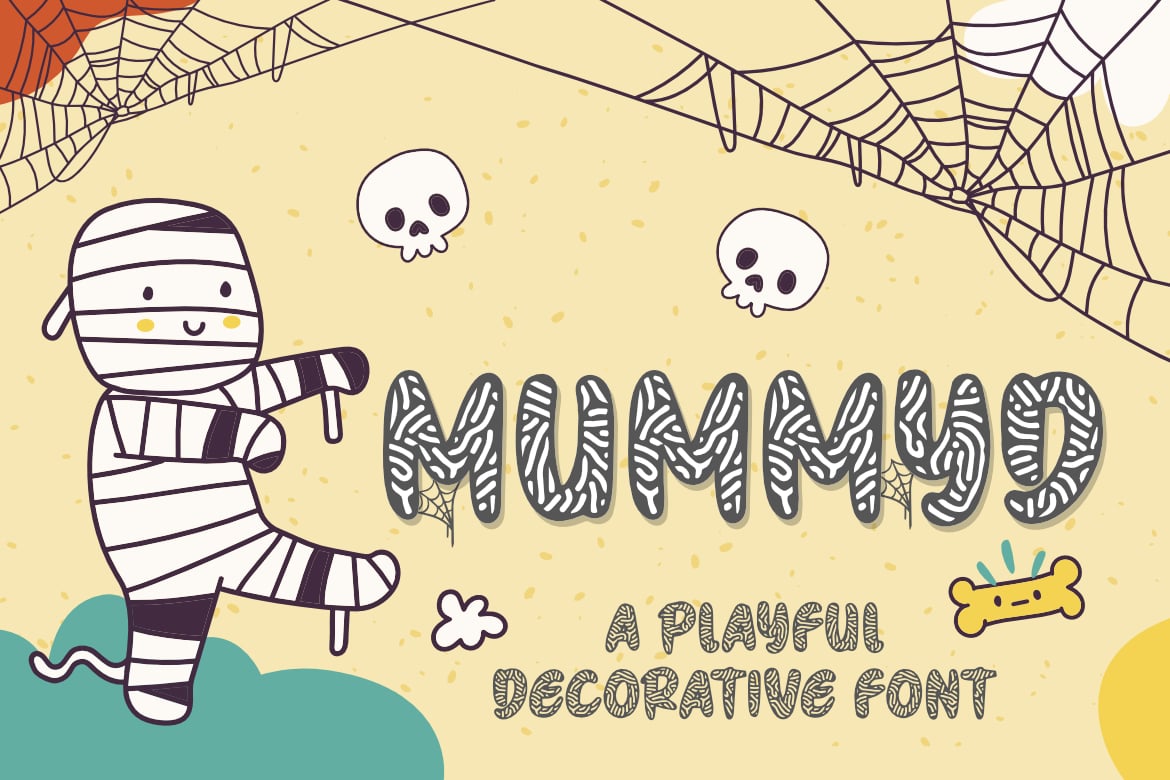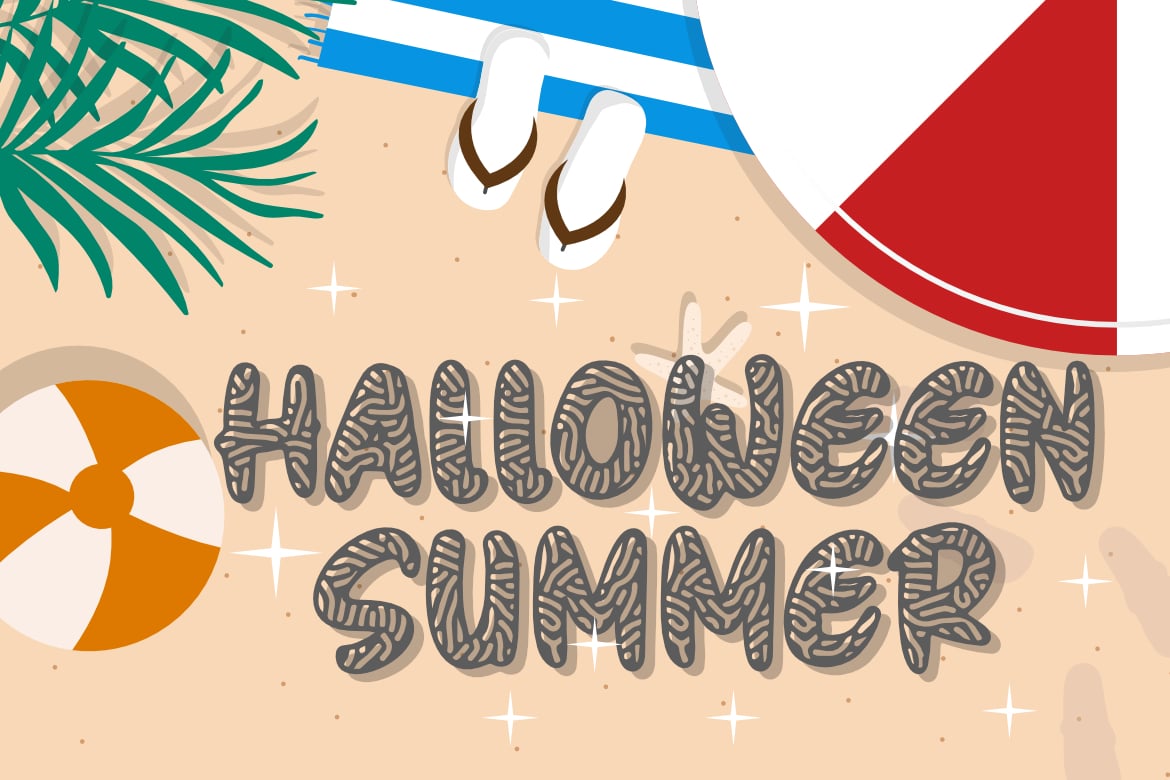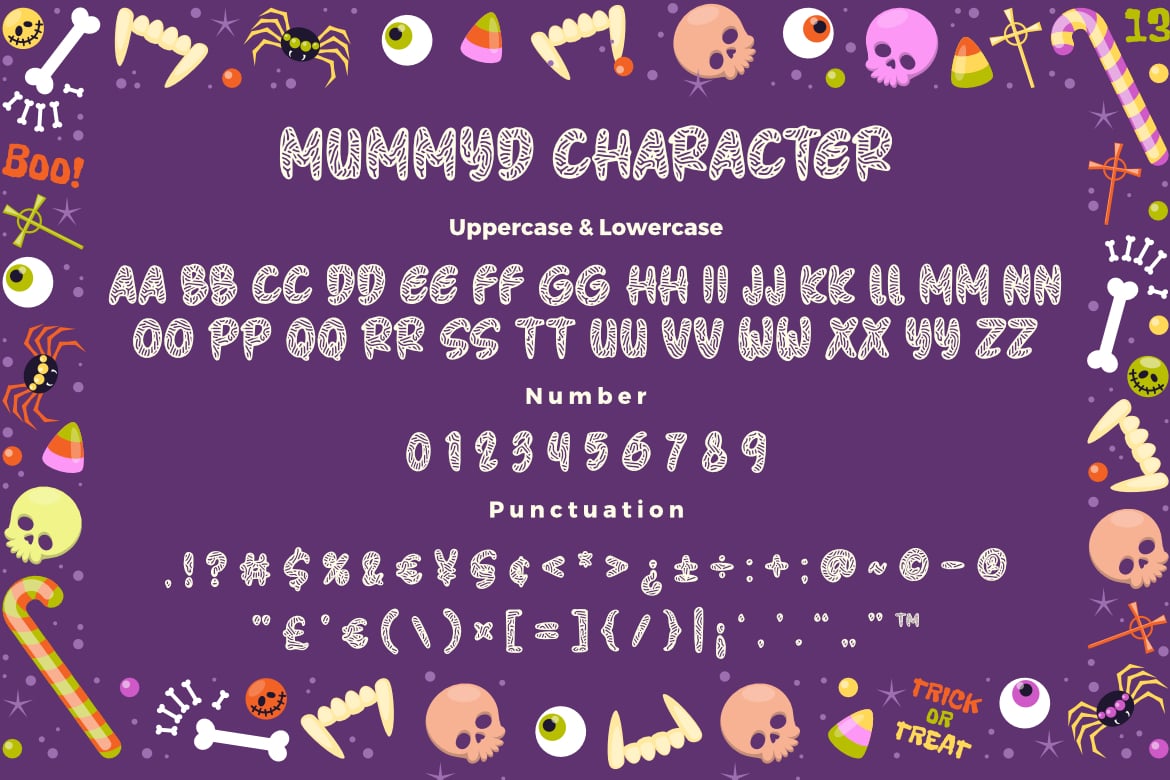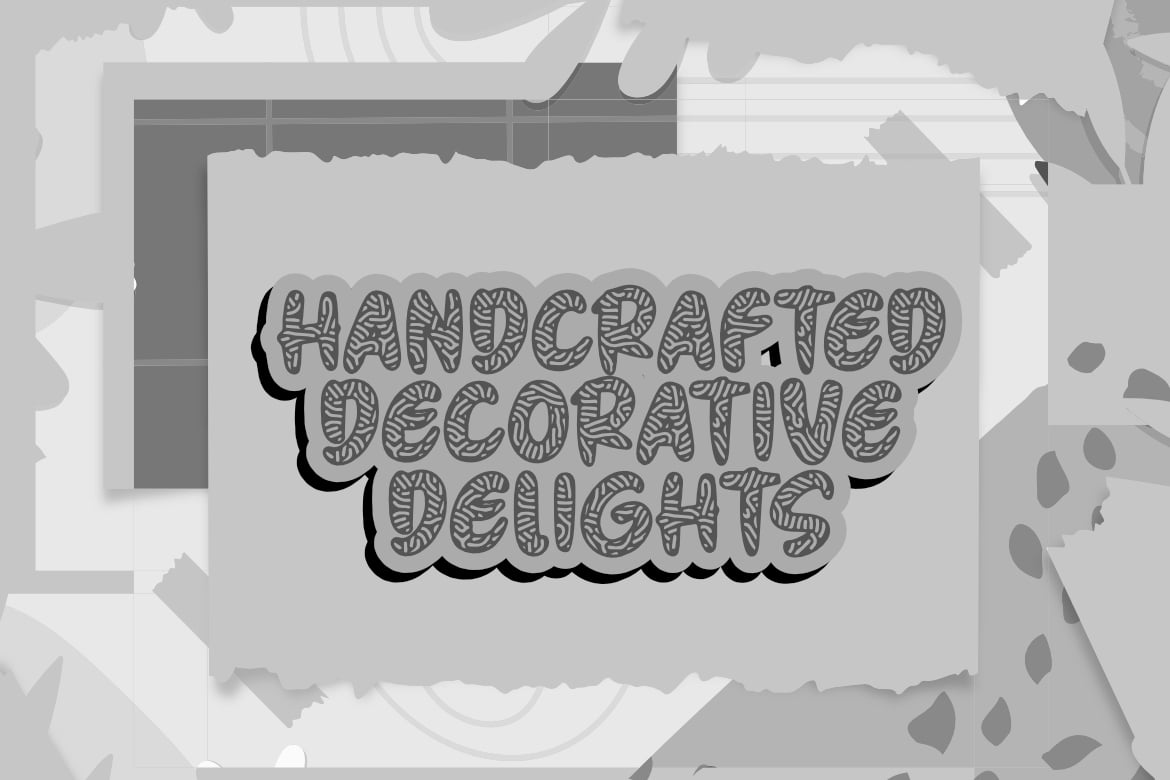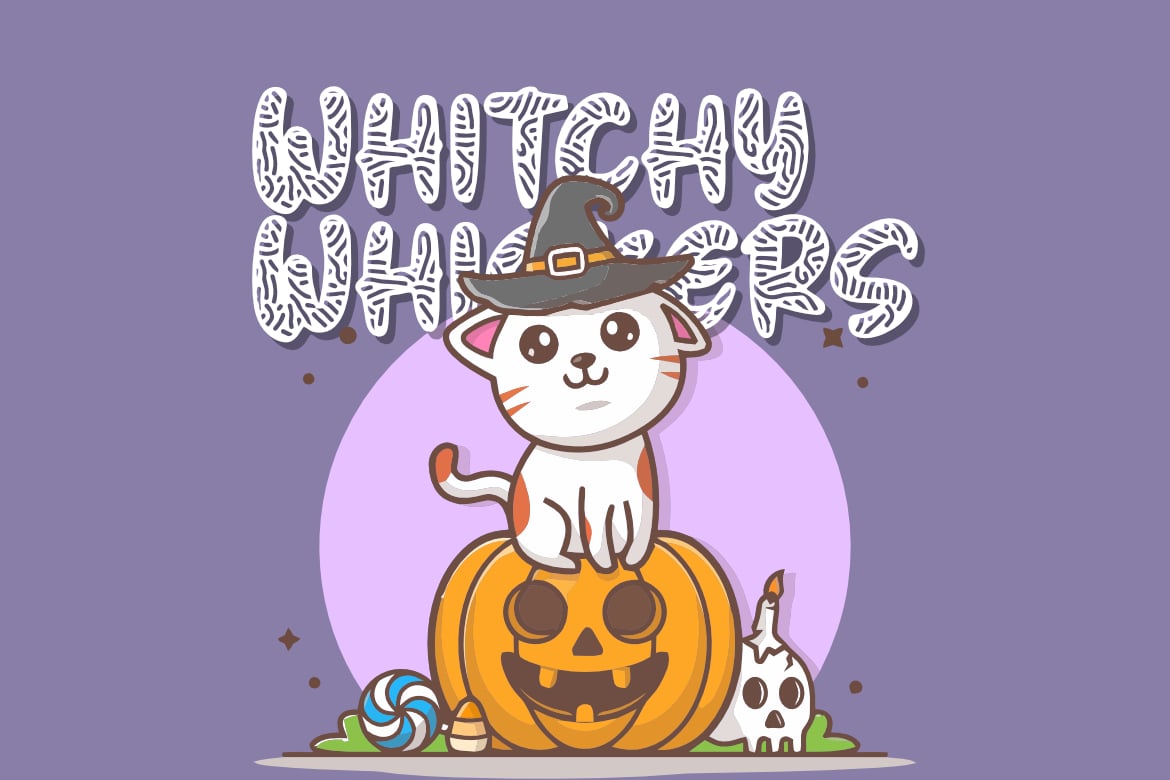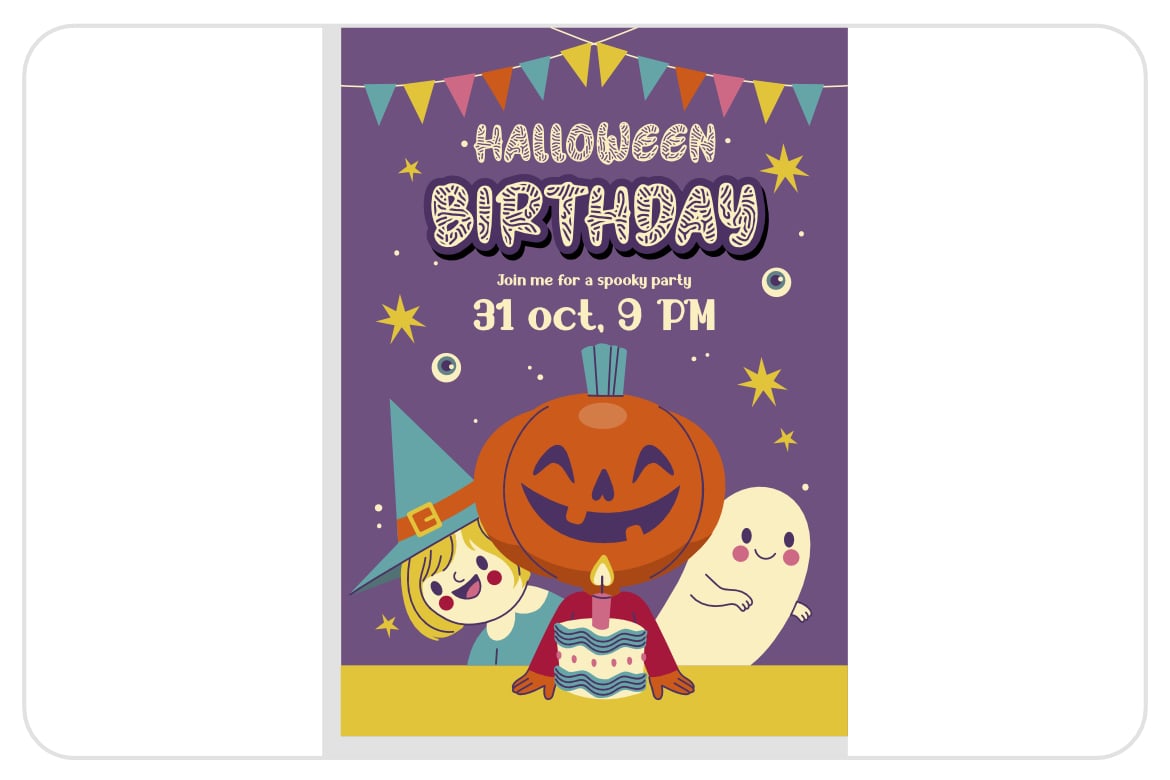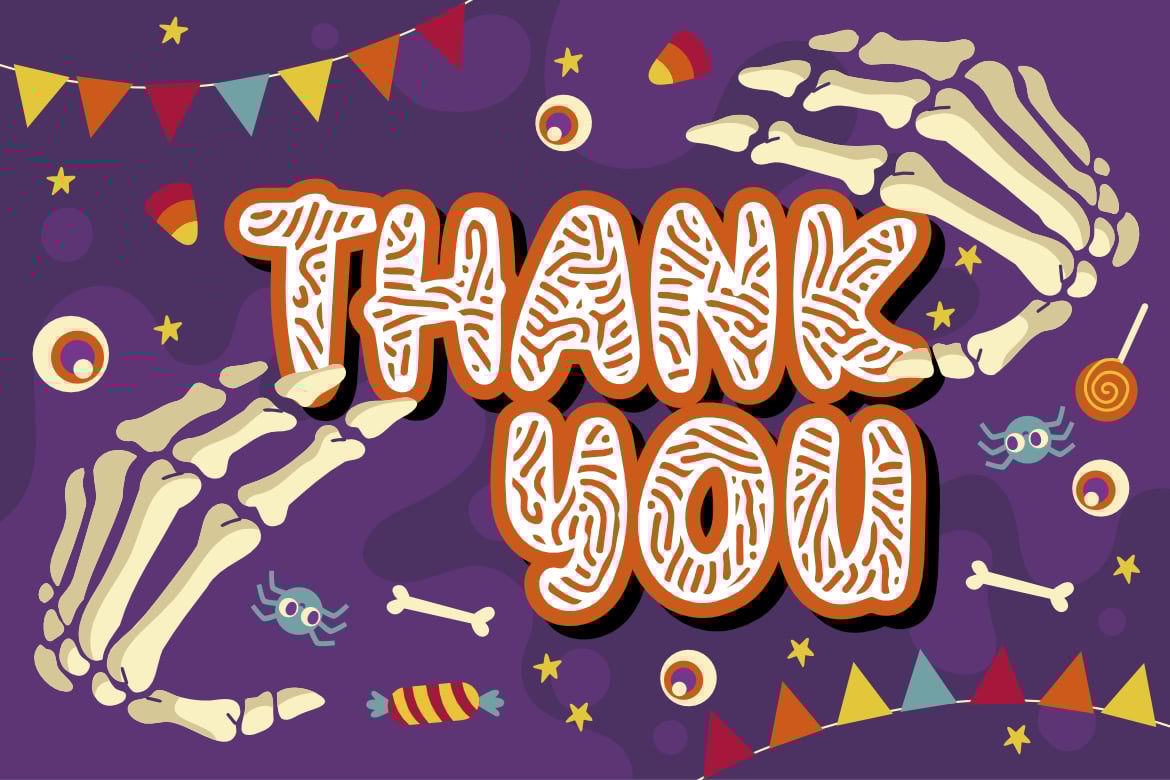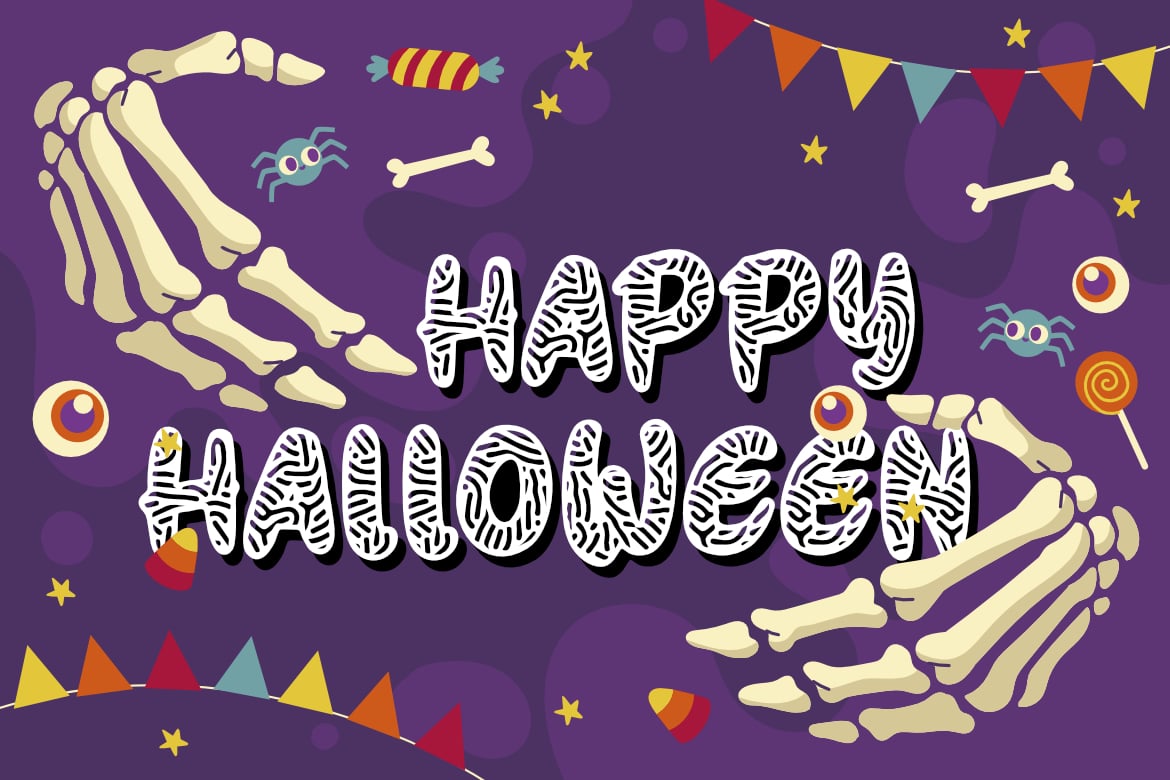
Mummyd a Playful Font
Mummyd a Playful Font, This font is made with a high premium quality level which you can use as flyers, quotes, posters, banners, packaging, merchandise, logotypes and much more.